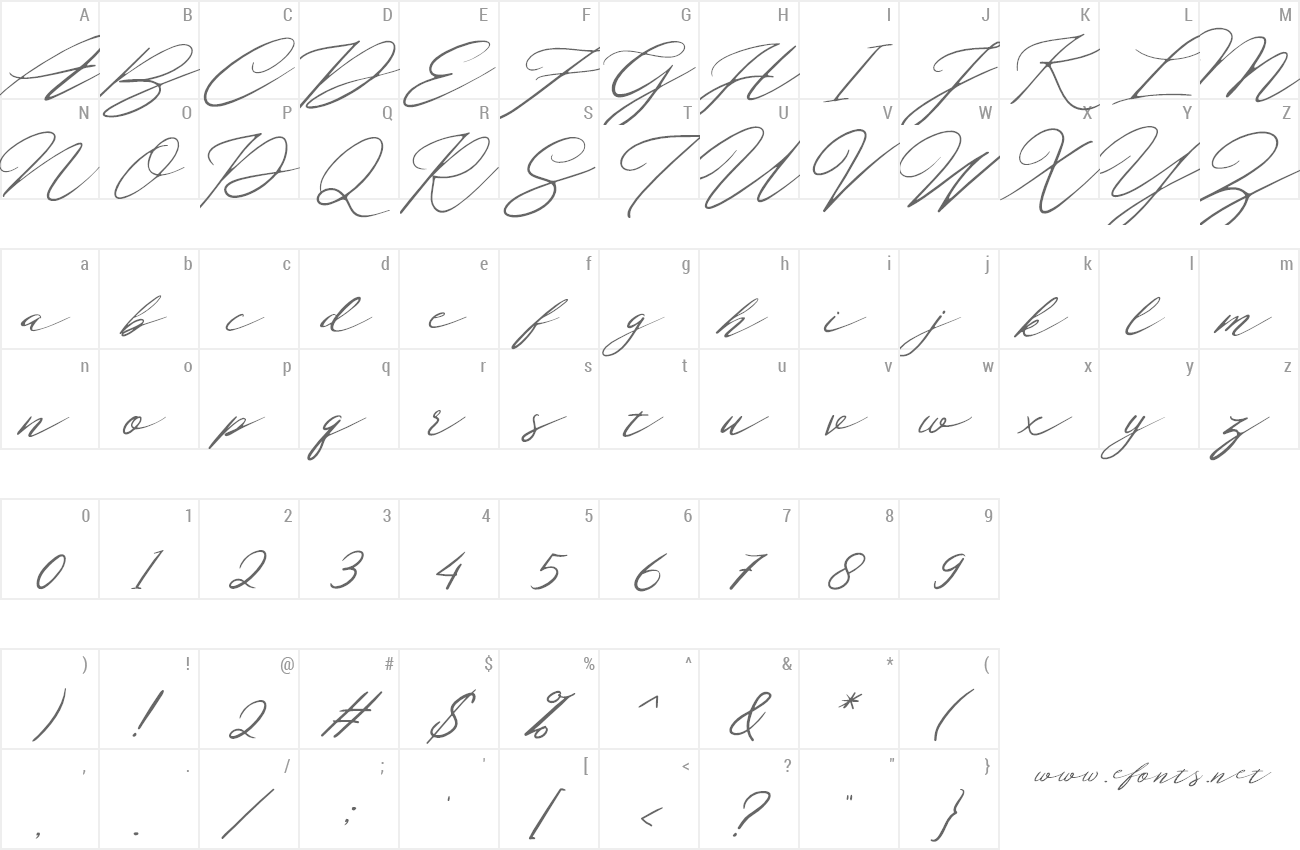
Preview and download Localghost Font. Created by Alit Design in Script Handwritten styles with Free for personal use license.
| Font name: | Localghost |
| Author: | Alit Design |